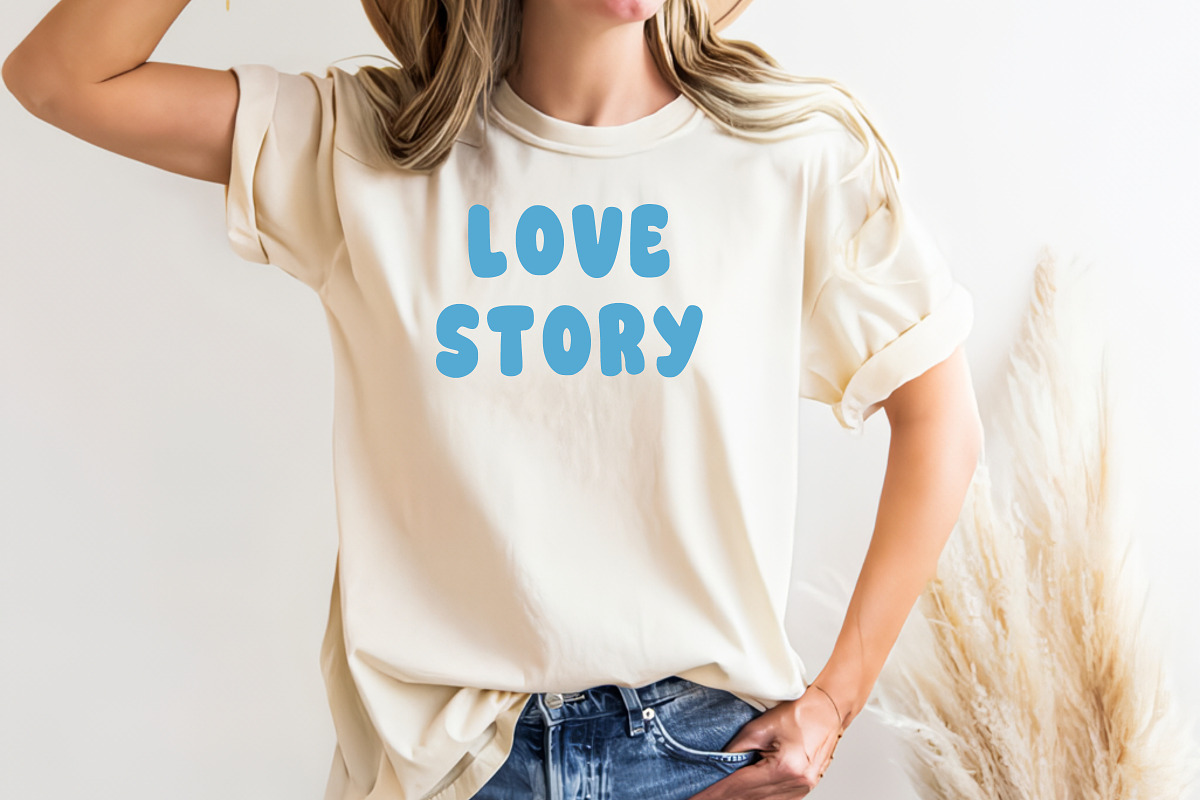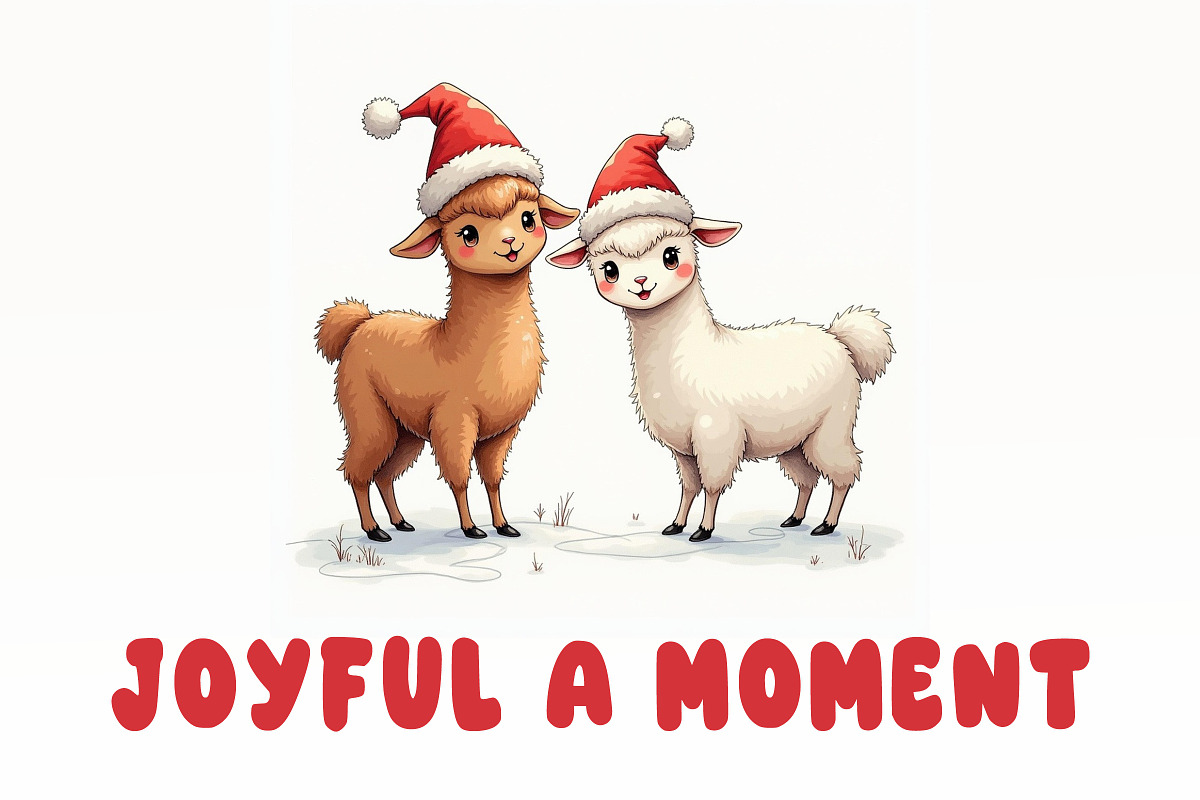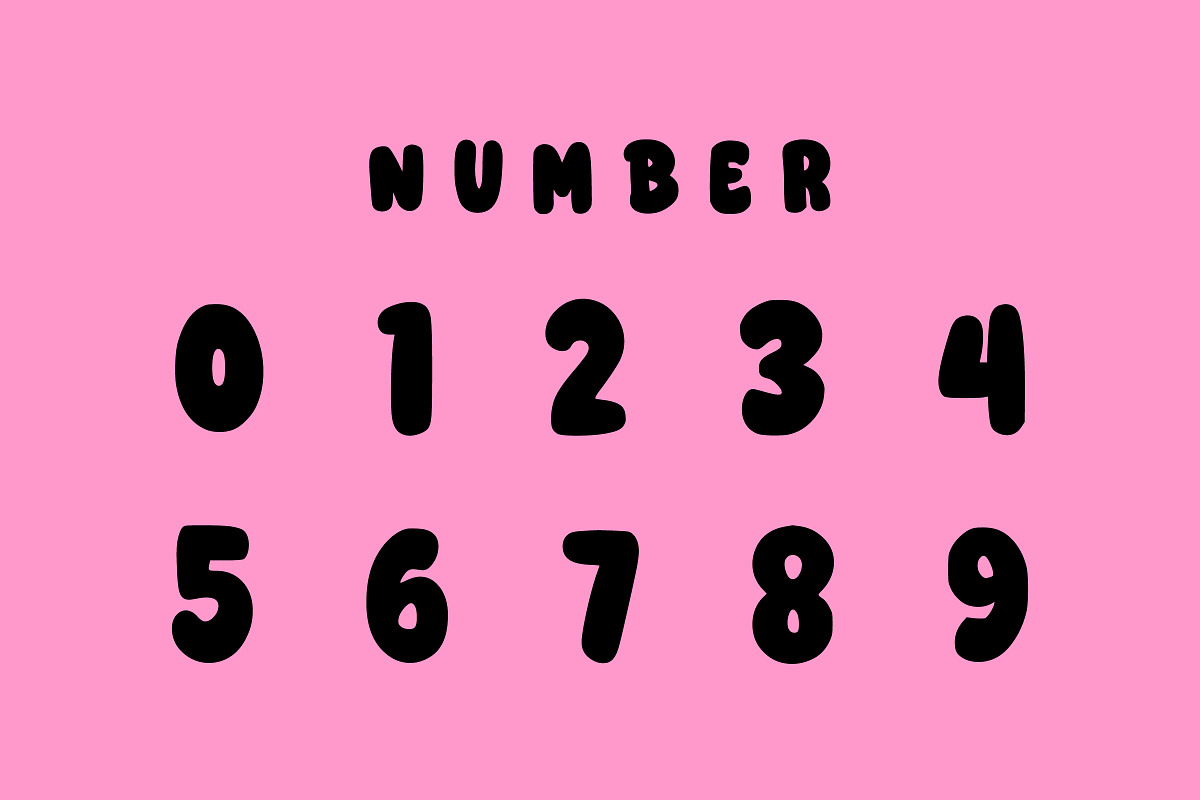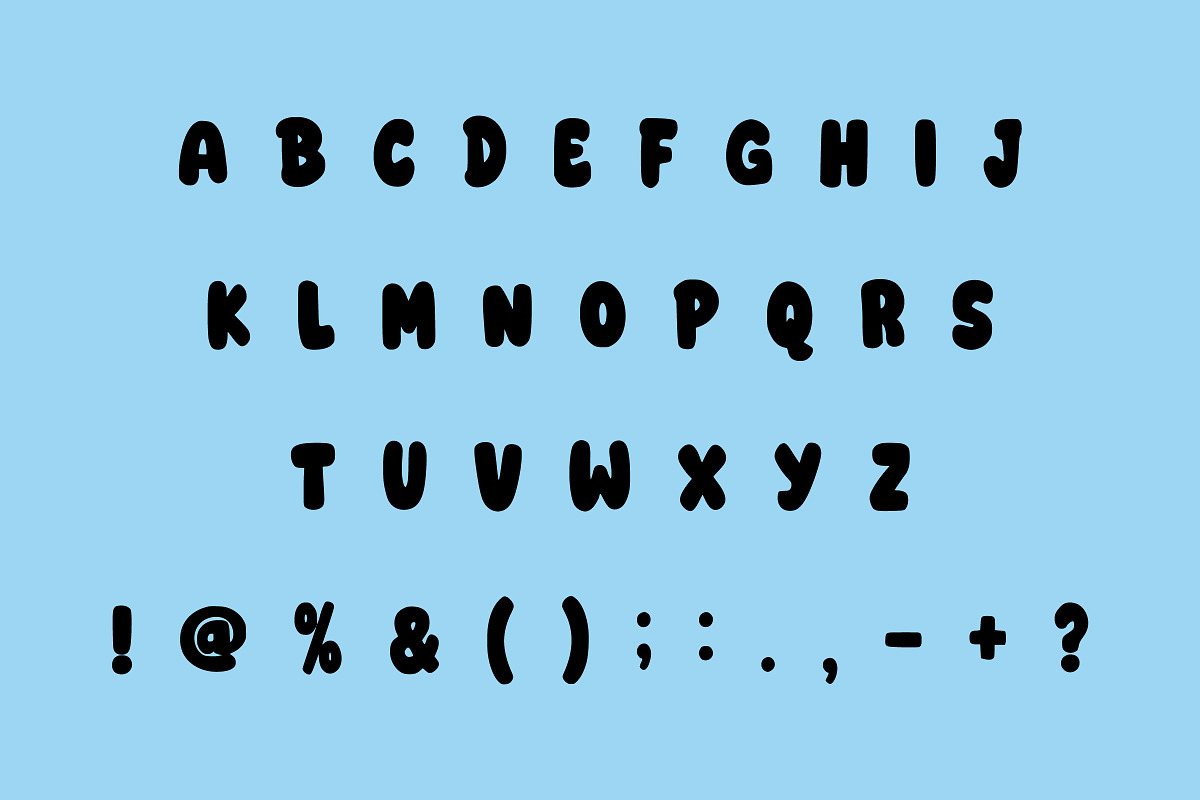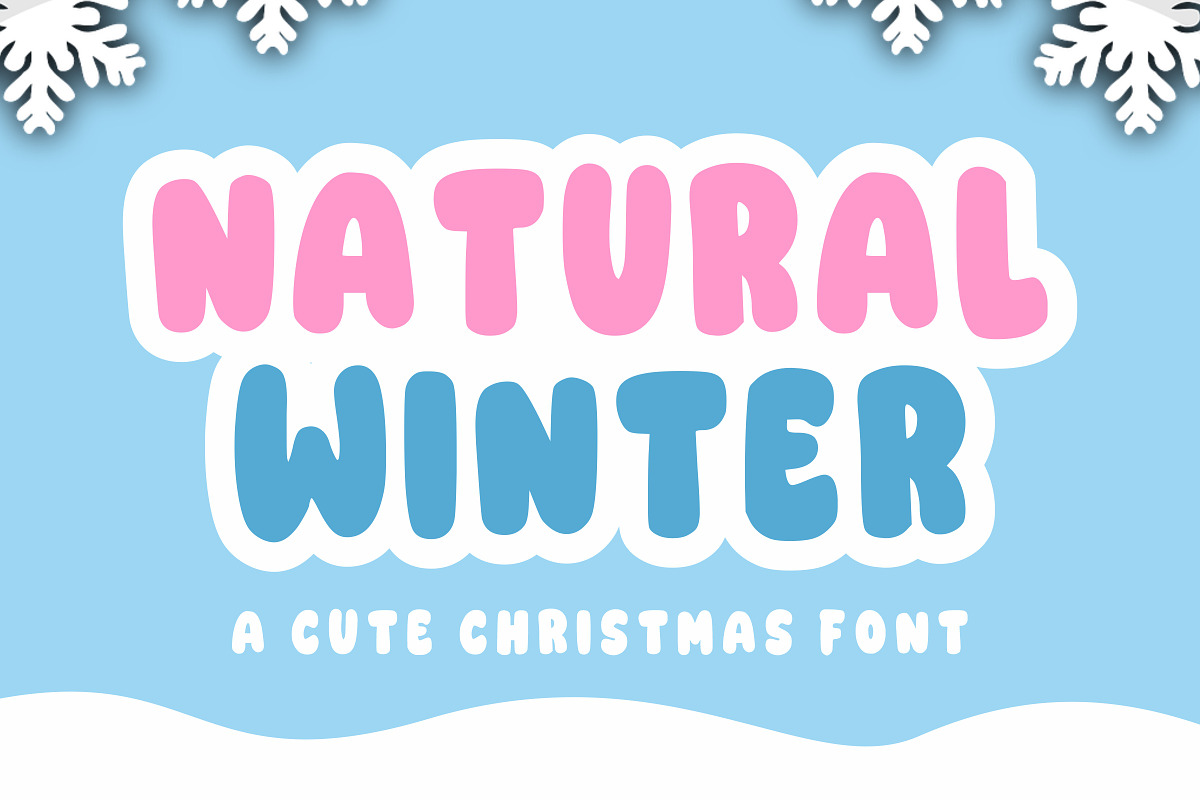
Natural Winter
Natural Winter is a fun and cute christmas font. Its friendly feel makes this font incredibly versatile, fitting a wide range of contexts. Add it to your creative ideas and notice how it makes them stand out! This font will be an incredible asset to your fonts’ library, as it has the potential to elevate any creation.